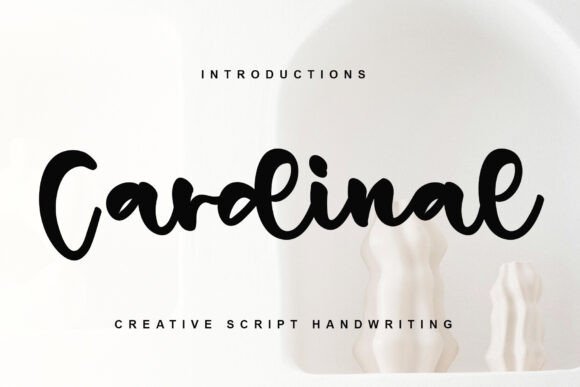
The Quest for the Perfect Font: Discovering Cardinal
I still remember the frustration of working on a project, hours spent crafting the perfect design, only to realize that the font I was using just wasn’t cutting it. The client wanted something modern, yet personal; elegant, yet playful. Sound familiar? That’s when I stumbled upon Cardinal, a stylish and modern handwritten font that has since become a staple in my design toolkit.
A First Impression: What Makes Cardinal Special
Cardinal is more than just a pretty face; it’s a versatile font designed to bring a touch of happiness to your creations. Whether you’re working on greeting cards, headlines, branding, or packaging, this font promises to deliver. So, what sets it apart?
- ✨ PUA encoded: This means you can access all the amazing glyphs and ligatures with ease, giving your designs a unique flair.
- ✅ Modern and handwritten: Cardinal strikes the perfect balance between modernity and the personal touch of handwritten fonts.
- 🎨 Versatile: It’s suitable for a wide spectrum of applications, from digital designs to print materials.
- ✨ The font’s consistency in style and quality across various platforms.
- ✅ Easy access to a wide range of glyphs and ligatures thanks to PUA encoding.
- 💕 The unique, friendly vibe it adds to any project.
While Cardinal is an excellent font, there are a few things to keep in mind:
- ⚠️ Legibility at small sizes: Like many handwritten fonts, Cardinal may lose some legibility when used at very small sizes. It’s best used at 14px or larger for optimal readability.
- 🤔 Pairing with other fonts: Due to its distinct style, Cardinal can be a bit challenging to pair with other fonts. Stick to simple, clean fonts for the best results.
The Story Behind Cardinal: Designer Inspiration
While the actual origins of Cardinal might be shrouded in mystery, it’s easy to imagine that its creation was inspired by a desire to bring warmth and personality to digital and print designs. Perhaps the designer, fueled by a passion for calligraphy and typography, aimed to craft a font that feels both modern and approachable.
Q: Is Cardinal suitable for body text?
A: While Cardinal is stunning, it’s best used for headings and short paragraphs due to its decorative nature. For longer body text, a more traditional font might be more readable.